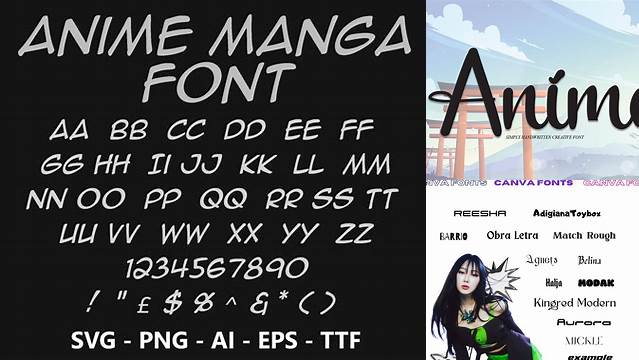
Free Manga Fonts For Canva: Latin & More!
Hey guys! Ever wanted to give your designs that cool manga vibe? You're in the right place! This article dives deep into the world of manga fonts, specifically focusing on Latin fonts that you can freely download and use in Canva. We'll explore different styles, where to find them, and how to use them to make your projects pop. Get ready to unleash your inner artist and create some awesome visuals!
What is a Manga Font?
Before we jump into the nitty-gritty of free downloads, let's understand what exactly a manga font is. A manga font isn't just any font; it's a typeface designed to mimic the hand-drawn lettering commonly found in Japanese manga and comics. These fonts often feature bold strokes, dynamic angles, and a sense of energy that perfectly complements the visual storytelling style of manga. They can range from cute and bubbly to sharp and dramatic, capturing the diverse range of emotions and styles within the manga universe. The charm of a manga font lies in its ability to add an authentic and playful touch to your projects, instantly transporting your audience to the world of Japanese comics. Think about the iconic speech bubbles and sound effects you see in manga – those are often crafted using specific fonts that convey the tone and energy of the scene. Whether you're creating a comic book, designing a poster, or just adding a touch of fun to your social media graphics, a well-chosen manga font can make all the difference. When selecting a manga font, consider the overall mood you want to create. A bold, energetic font might be perfect for action scenes, while a softer, rounded font could be ideal for more heartwarming or comedic moments.
Why Use Manga Fonts in Canva?
Canva is a fantastic tool for graphic design, especially for those who are just starting out. It's user-friendly, has a ton of templates, and, most importantly for our discussion, it allows you to upload your own fonts! This means you can download free manga fonts and use them seamlessly within your Canva projects. Using manga fonts in Canva opens up a world of creative possibilities. You can add authentic-looking text to your comic strips, design eye-catching posters, create engaging social media graphics, and so much more. The versatility of manga fonts means they can be used in a variety of projects, not just those directly related to comics. Imagine creating a birthday card with a playful manga font, or designing a flyer for a club event with a bold, energetic typeface. The key is to experiment and see how these fonts can add a unique touch to your designs. Canva's drag-and-drop interface makes it incredibly easy to test out different fonts and see which ones work best for your project. You can also adjust the size, color, and spacing of the text to further customize the look and feel.
Latin Manga Fonts: What are They?
So, what exactly are Latin manga fonts? Simply put, they are manga-style fonts that support the Latin alphabet (the alphabet used in English and many other Western languages). This is crucial because not all manga fonts support Latin characters; some are designed specifically for Japanese characters. Finding Latin manga fonts allows you to use these cool, expressive typefaces in your English-language projects without any compatibility issues. The beauty of Latin manga fonts lies in their ability to bridge the gap between Eastern and Western design aesthetics. They allow you to incorporate the visual flair of manga into your projects while still using a familiar writing system. This makes them incredibly versatile for a wide range of applications, from website headers to book covers to social media posts. When searching for Latin manga fonts, you'll find a diverse range of styles, each with its own unique personality. Some fonts mimic the thick, bold strokes of traditional manga lettering, while others have a more playful, rounded appearance. Some fonts even incorporate stylistic elements like speed lines or sound effect characters, further enhancing the manga-inspired aesthetic.
Where to Find Free Manga Fonts for Canva
Alright, let's get to the good stuff! Where can you actually find these free manga fonts for Canva? There are several excellent websites and resources where you can discover and download a wide variety of manga fonts. Remember to always check the license before using a font, especially for commercial projects. Many fonts are free for personal use but may require a license for commercial use. One of the most popular resources for free fonts is FontSpace. FontSpace has a huge selection of fonts, including many manga-inspired options. You can easily search for fonts by category or keyword, and they have a clear licensing information for each font. Another great option is DaFont. DaFont is another massive font repository with a diverse collection of free fonts, including a dedicated section for comic and cartoon fonts. You'll find plenty of manga-esque fonts here, from bold and energetic to cute and playful. Google Fonts is also a surprisingly good resource for manga-style fonts, especially if you're looking for fonts that are optimized for web use. While their selection may not be as extensive as FontSpace or DaFont, the fonts on Google Fonts are all open-source and free to use in any project, commercial or personal.